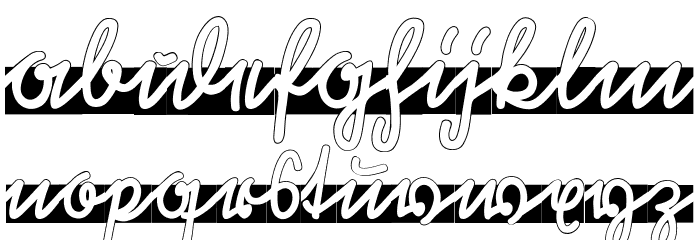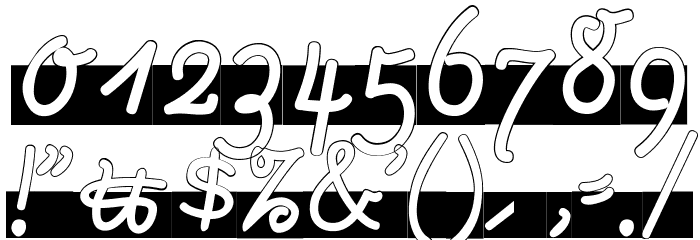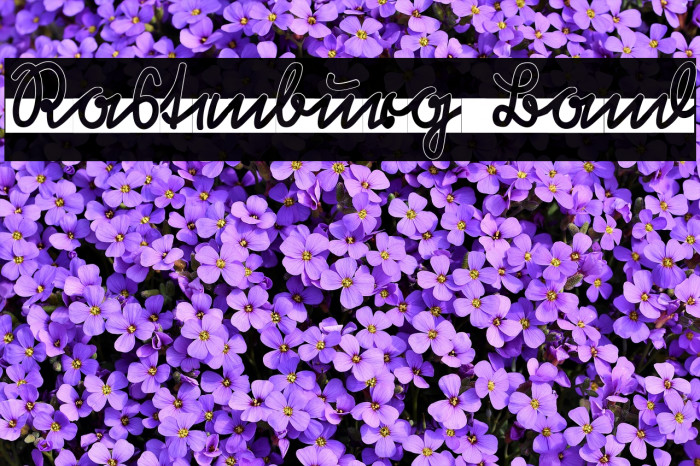
Rastenburg Band Font
This font features a playful and whimsical script style with a flowing, cursive design. The characters are interconnected, creating a sense of movement and fluidity. The strokes are smooth and rounded, with a moderate thickness that gives the font a balanced appearance. The uppercase letters are slightly more elaborate, while the lowercase letters maintain a consistent rhythm. The numerals and special characters are designed to match the overall style, ensuring a cohesive look across all text elements.
A playful, cursive script font with interconnected characters and smooth, rounded strokes.